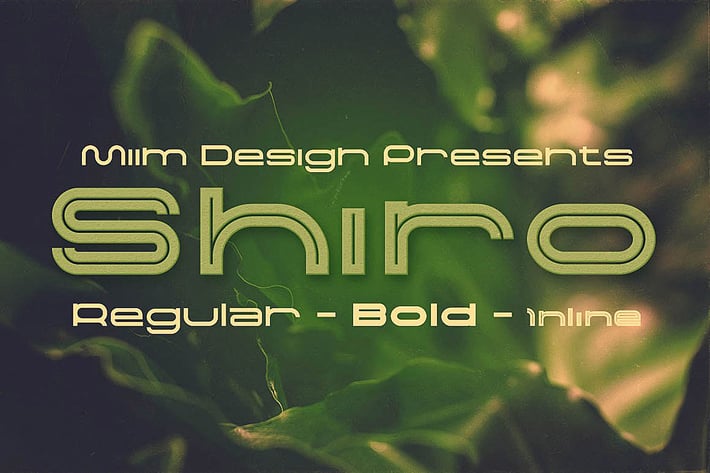
Shiro - Modern Font
Creative, modern & futuristic font for your new projects. Great for modern or futursitic style projects! 3 font files (otf & ttf) - regular, bold & inline.